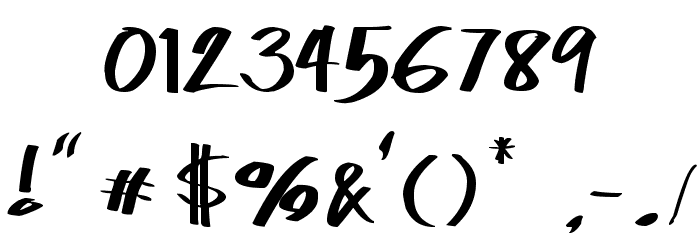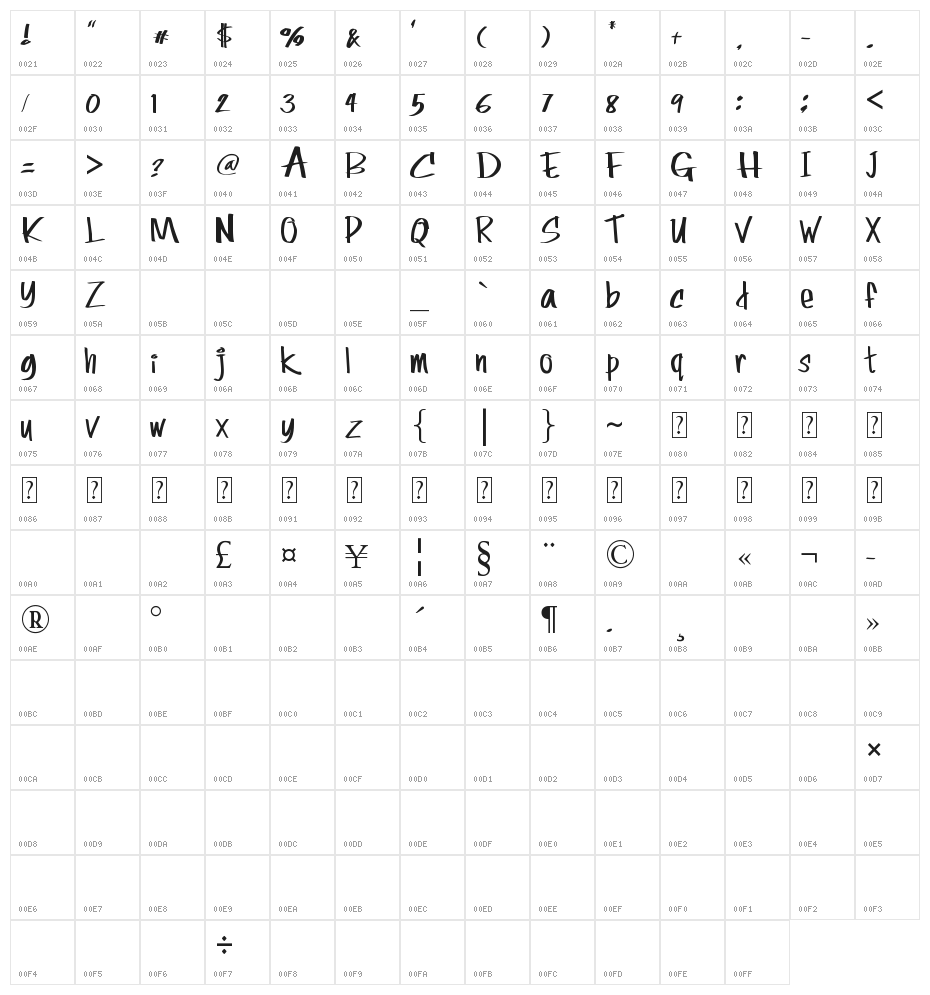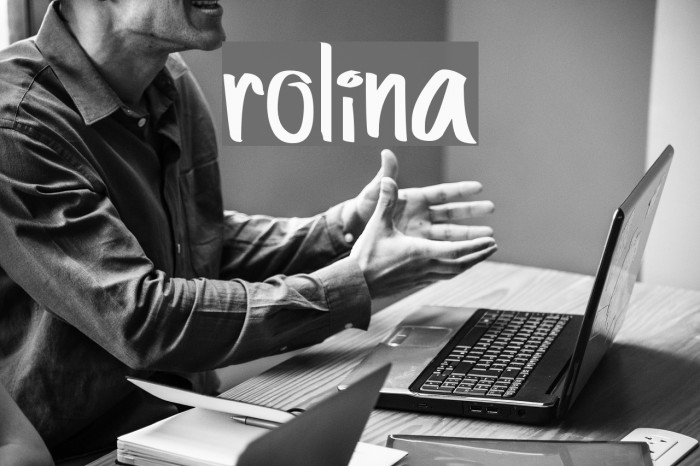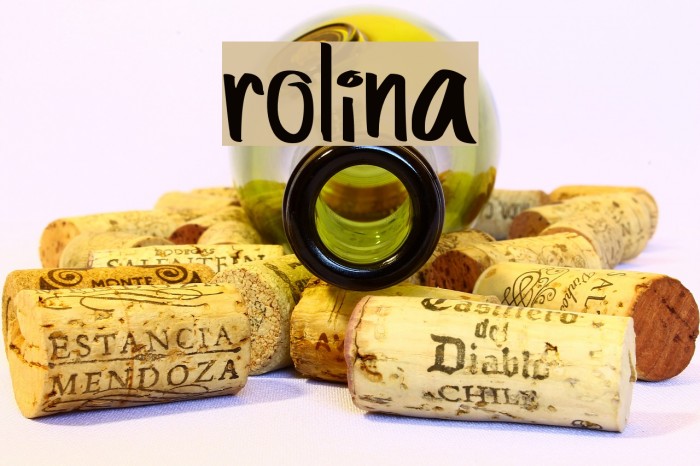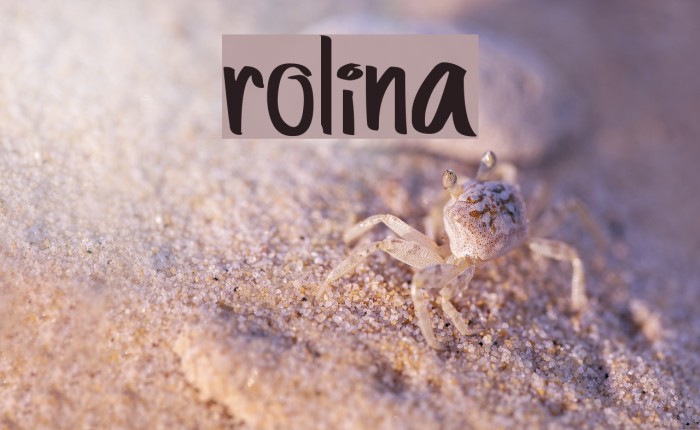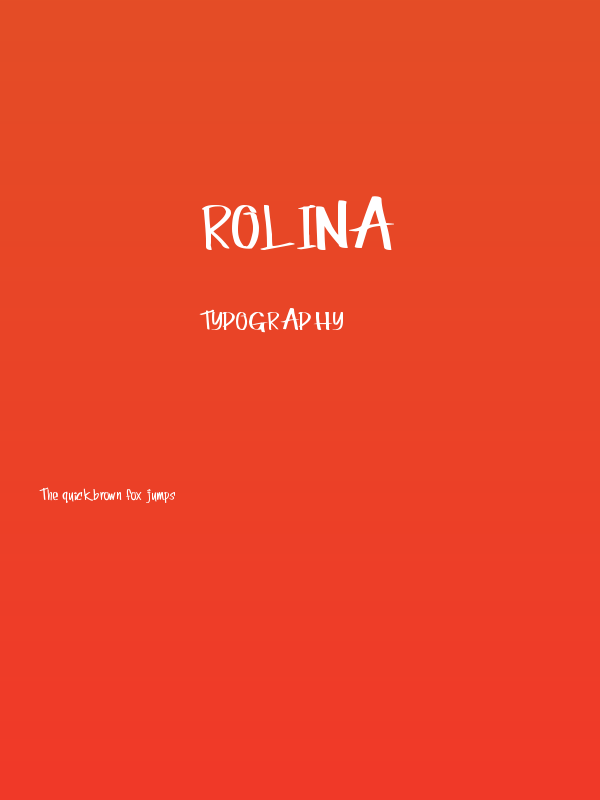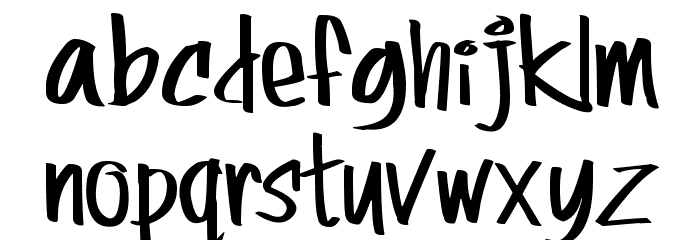
rolina Font
rolina Description
This font features a playful and dynamic handwritten style, characterized by its bold and slightly irregular strokes. The uppercase letters are tall and slightly narrow, with a whimsical flair that adds personality. The lowercase letters maintain a consistent style, with some characters like 'g' and 'j' having distinctive loops. Numbers are bold and clear, matching the overall style of the alphabet. The special characters are creatively designed, adding to the font's unique charm. This font is perfect for projects that require a fun and informal touch.
| Proposed Projects | Ideal for greeting cards, children's books, playful branding, and social media graphics. |